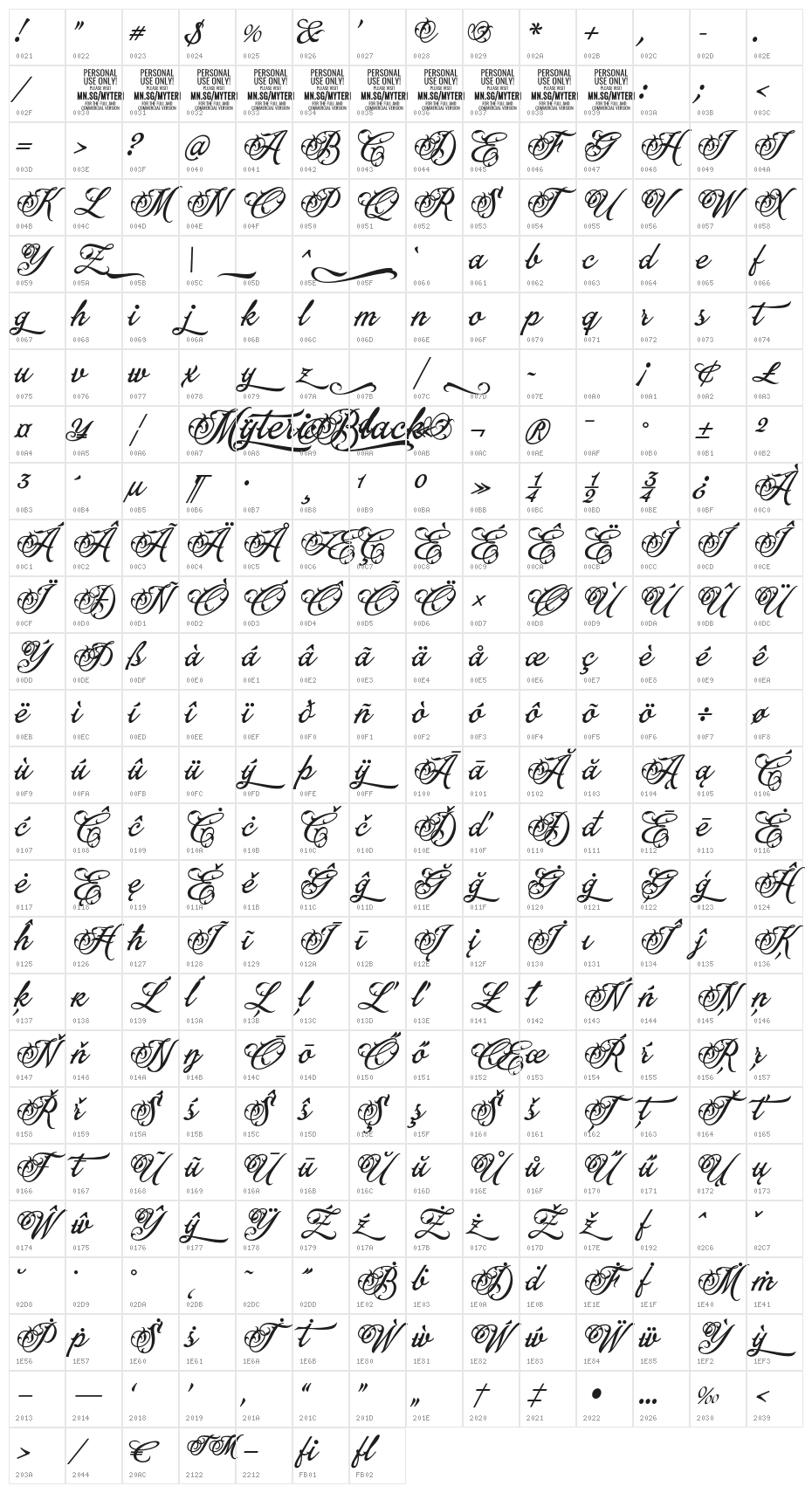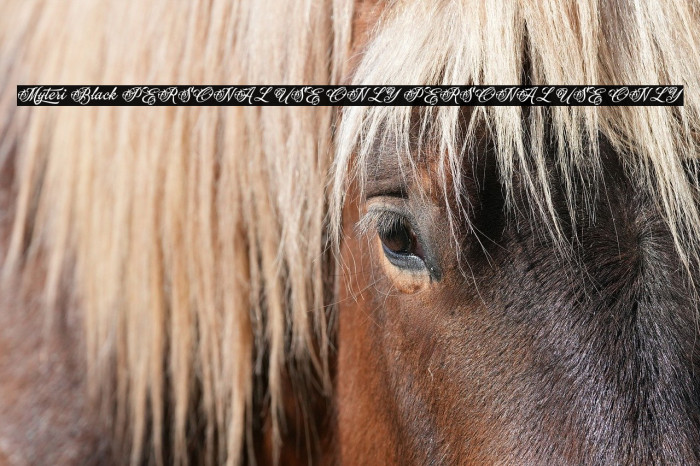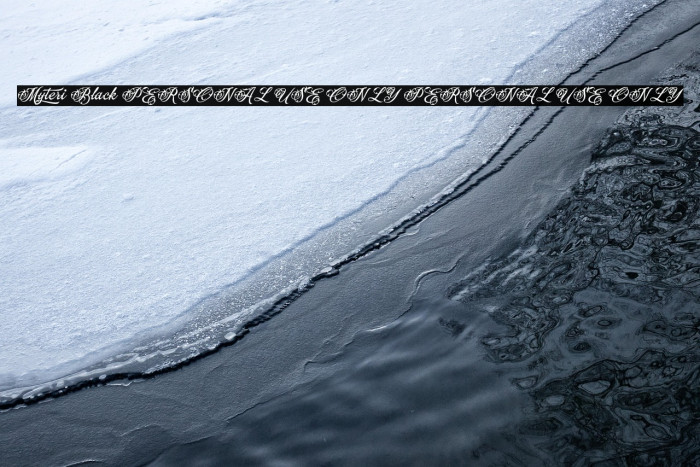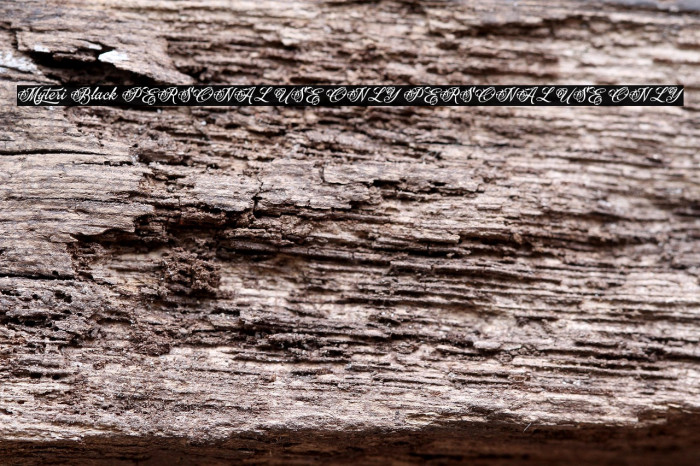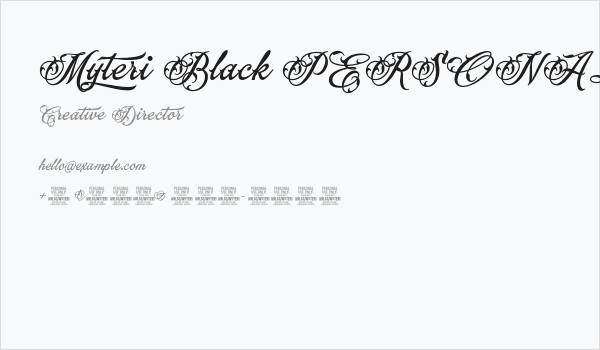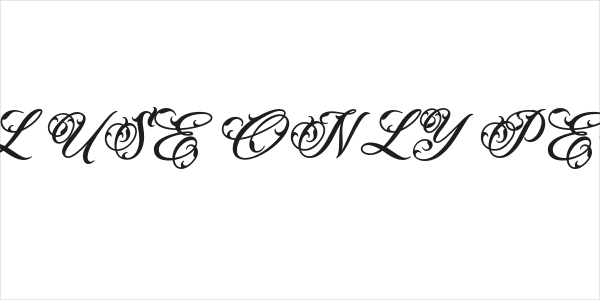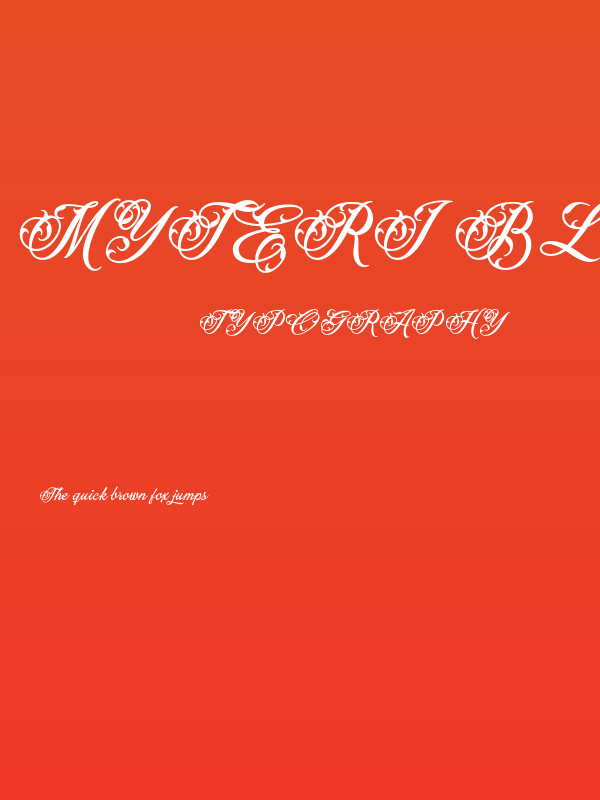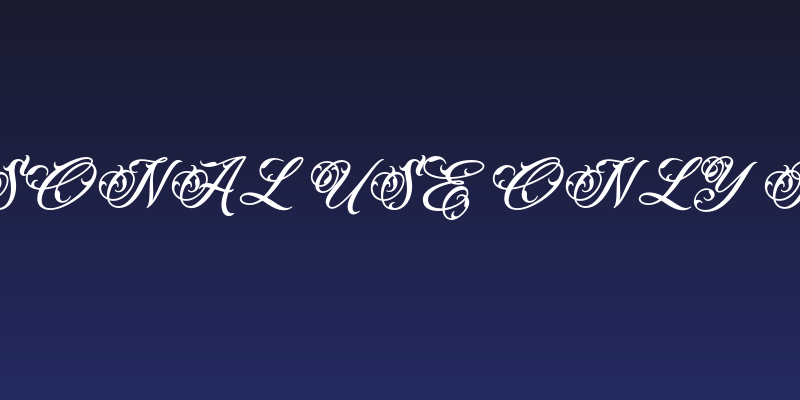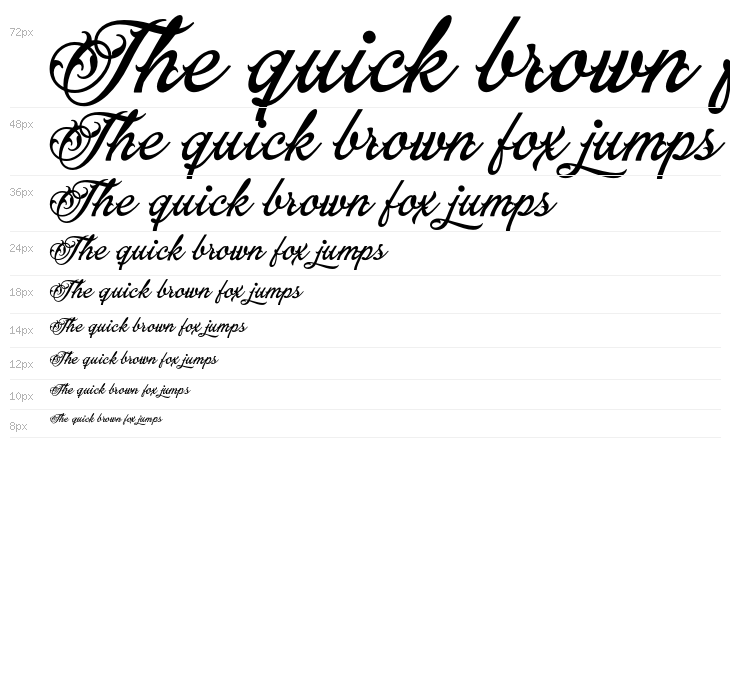
Myteri Black PERSONAL USE ONLY Font
Myteri Black PERSONAL USE ONLY Description
This font exhibits an elegant and intricate script style, characterized by its flowing, cursive letterforms. The uppercase letters are adorned with elaborate swirls and flourishes, giving them a decorative and sophisticated appearance. The lowercase letters maintain a smooth, connected script, enhancing the font's fluidity and grace. The numerals and special characters are equally ornate, integrating seamlessly with the overall design. This font's artistic flair makes it suitable for projects that require a touch of elegance and refinement.
| Proposed Projects | Ideal for wedding invitations, luxury branding, and decorative signage. |